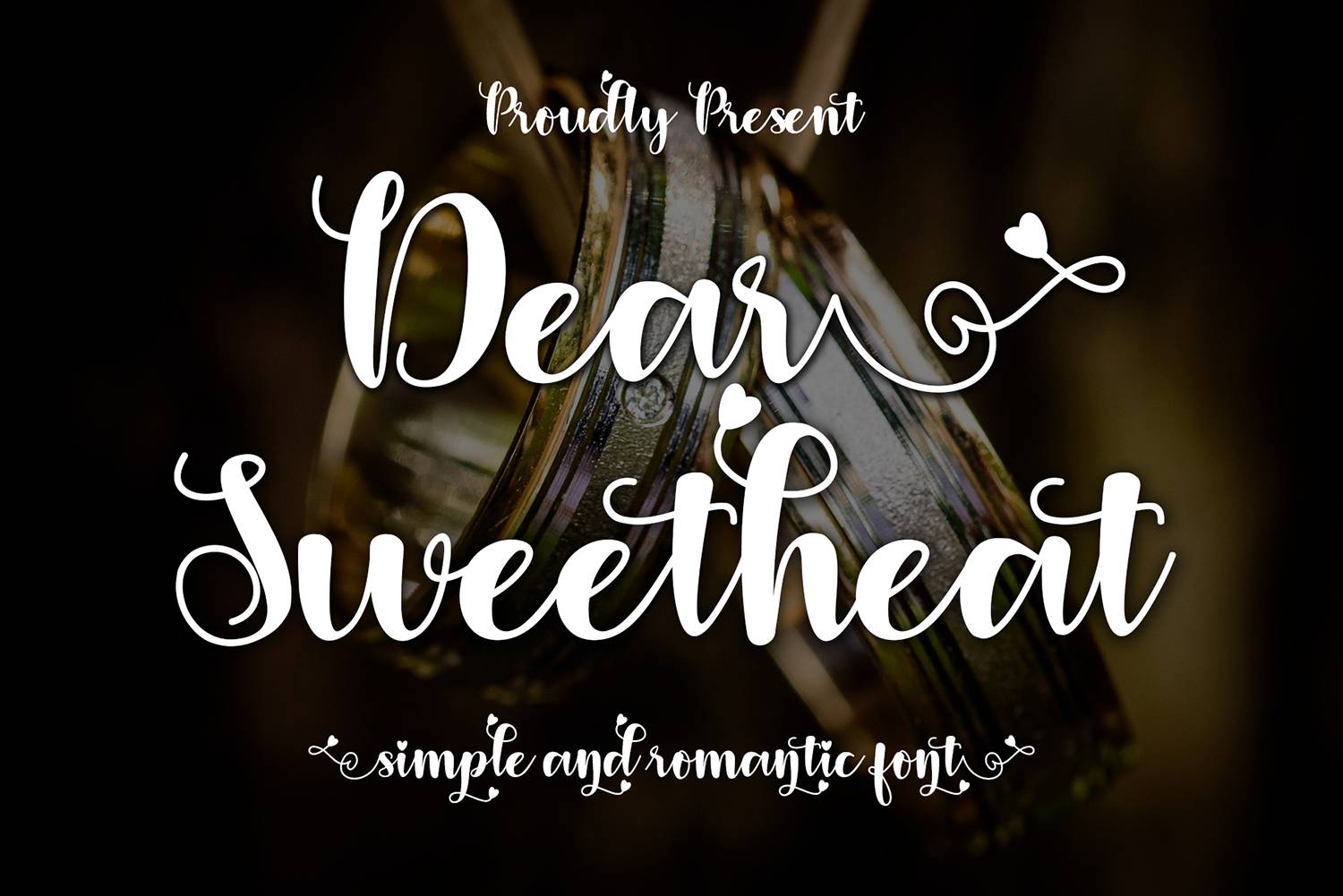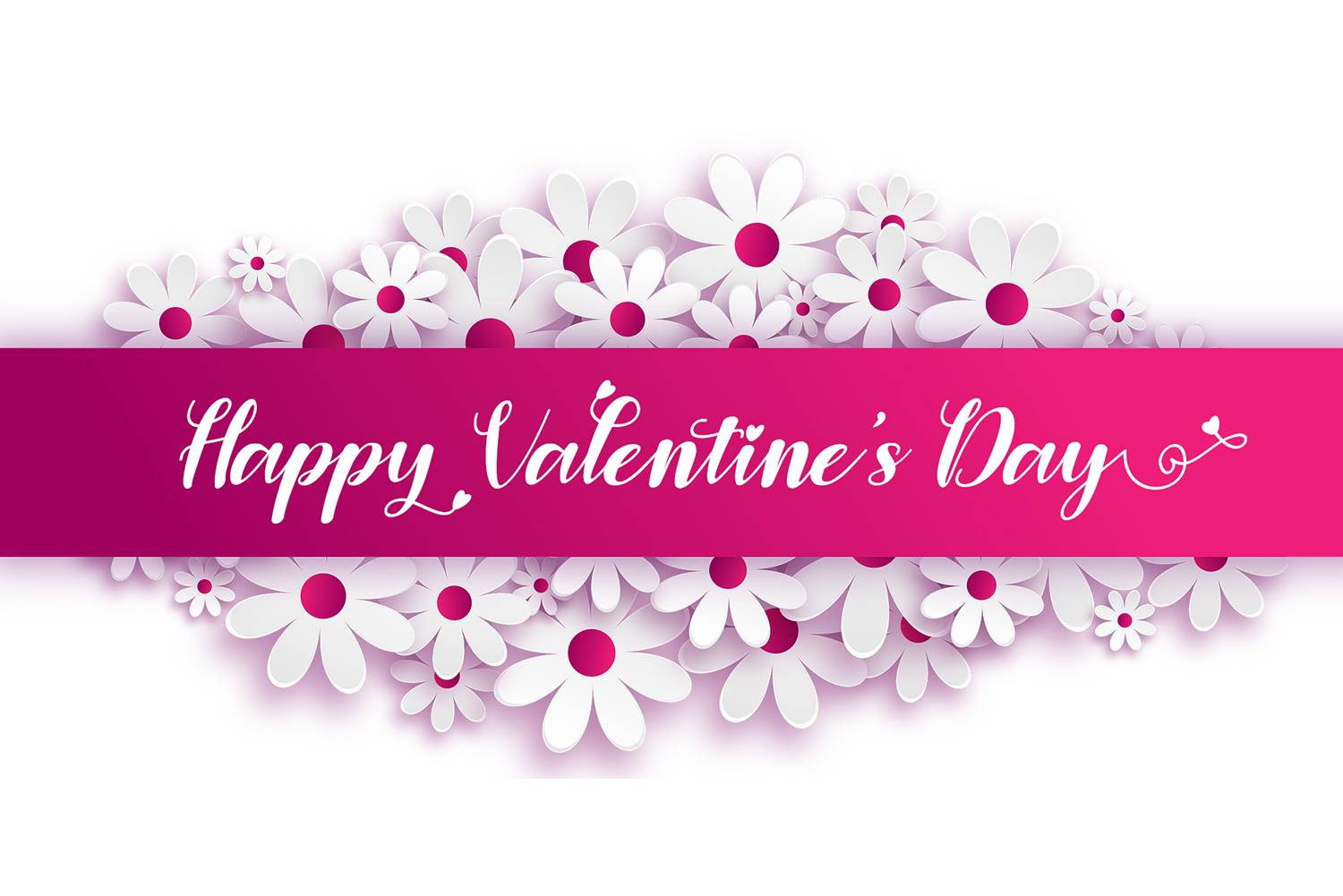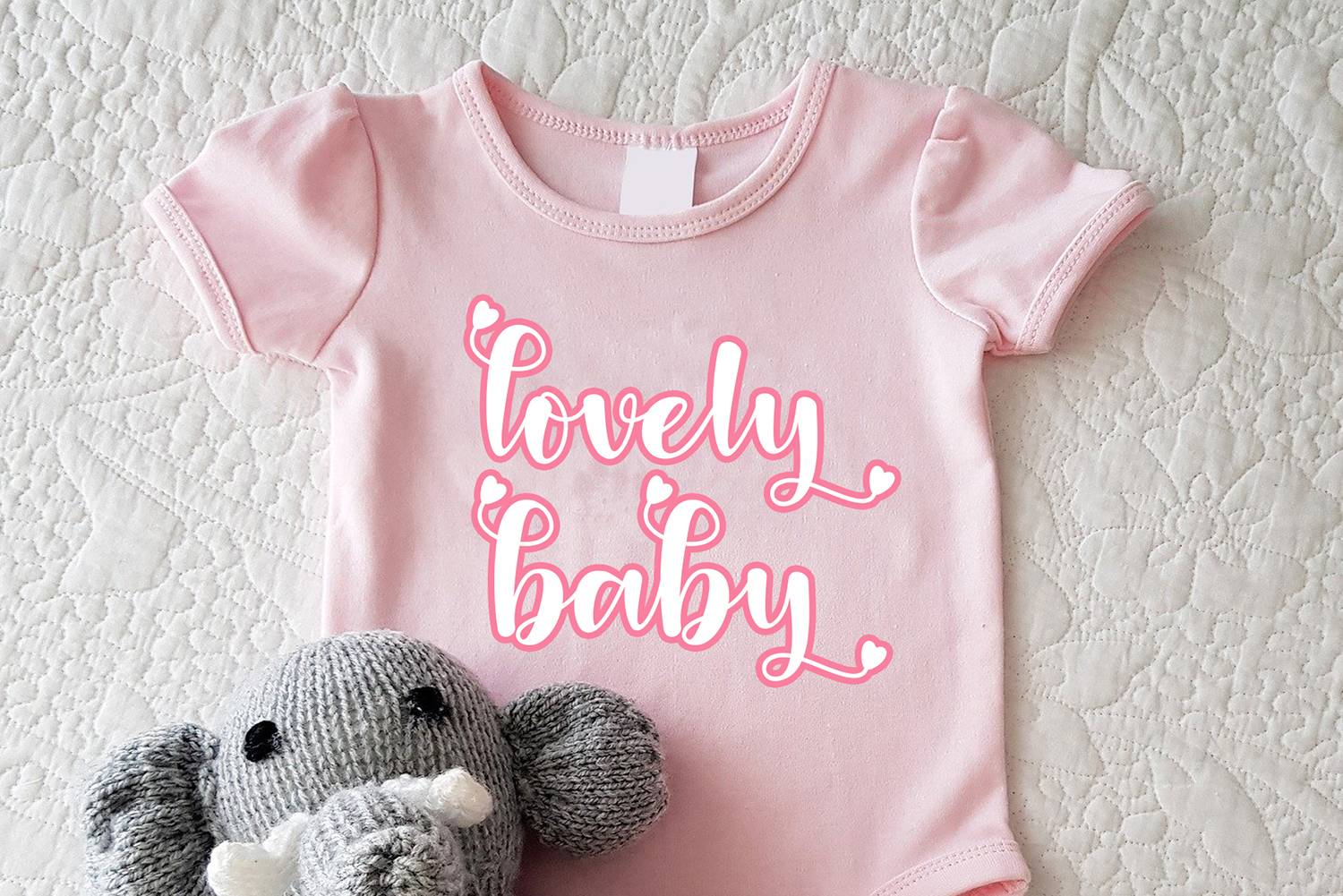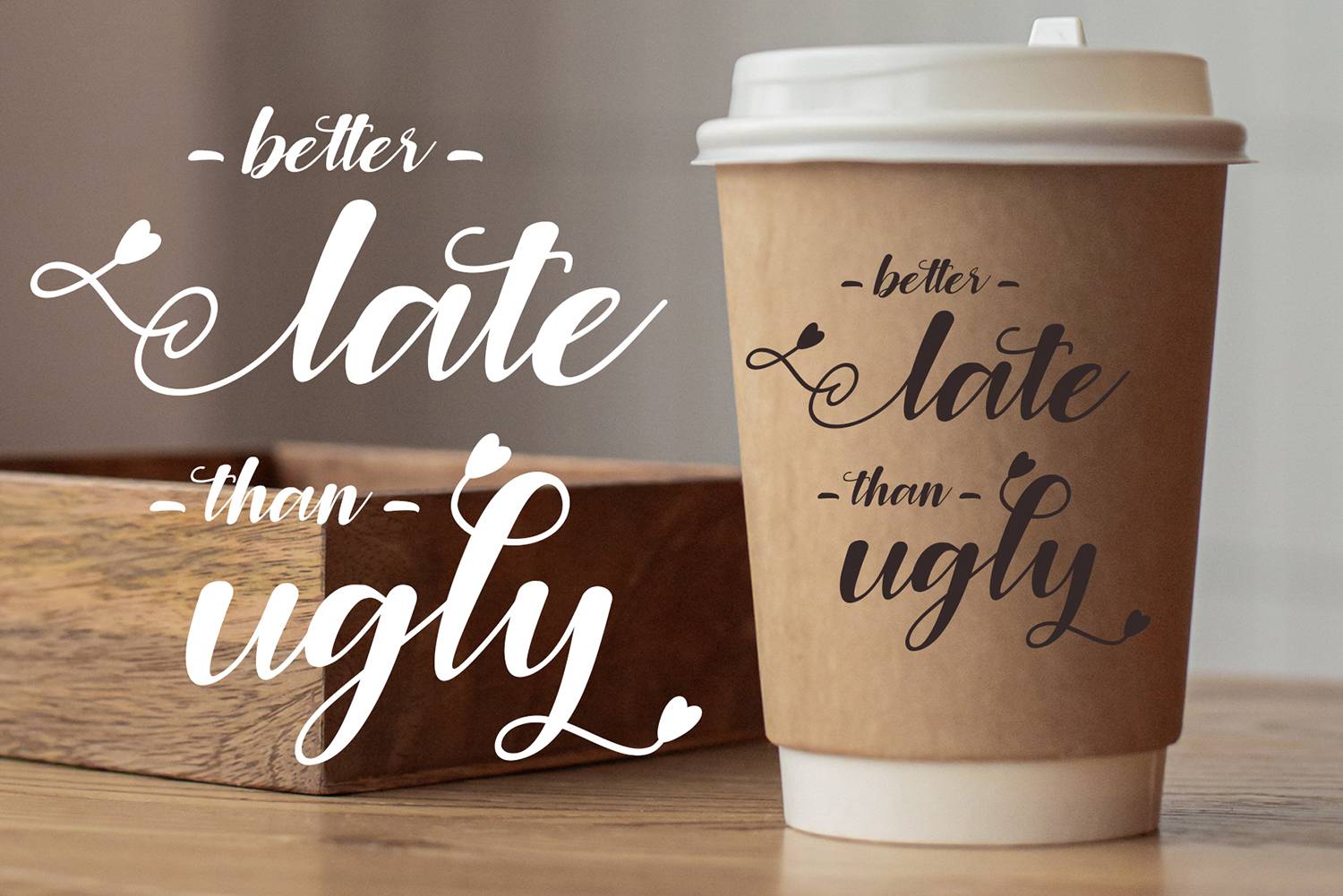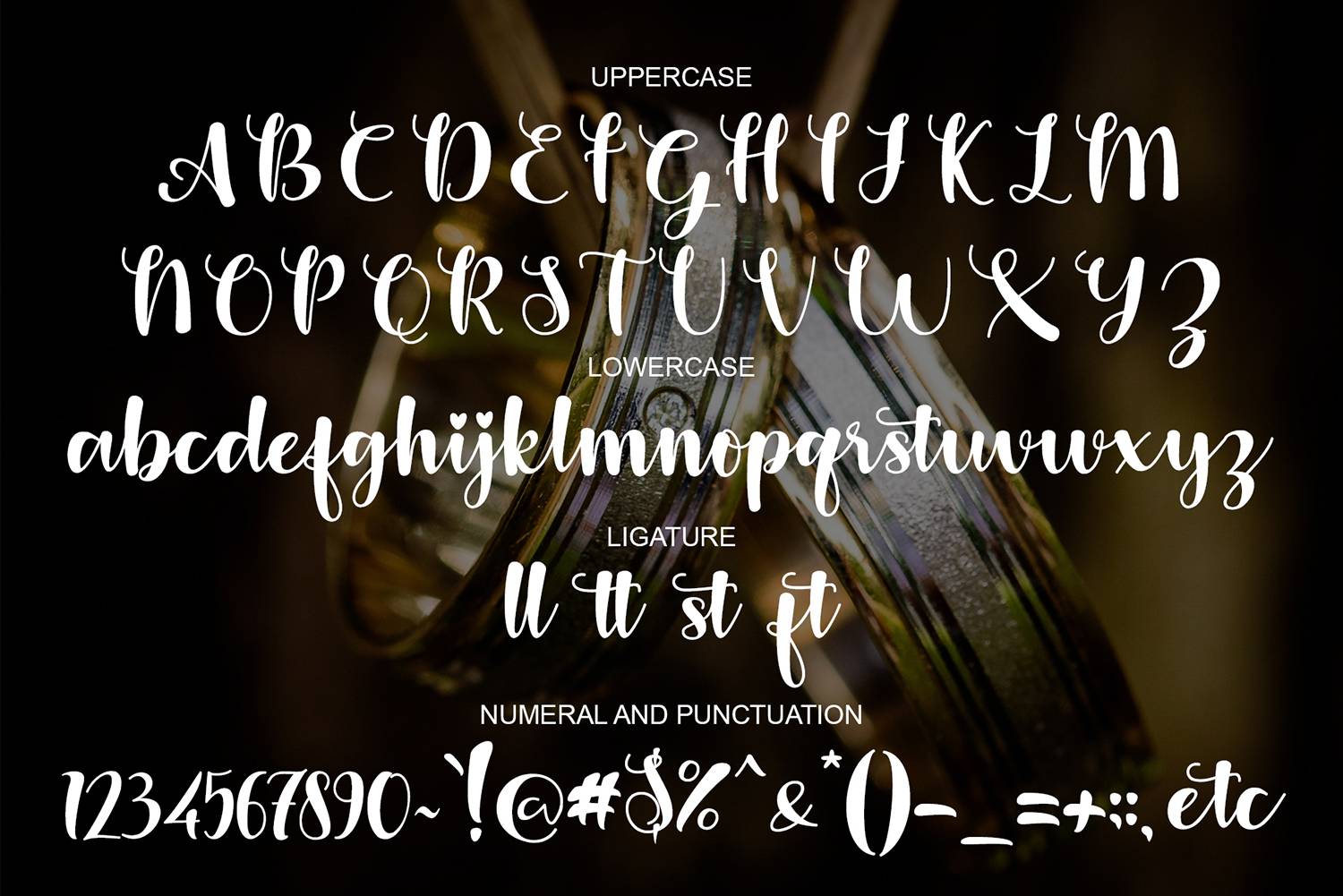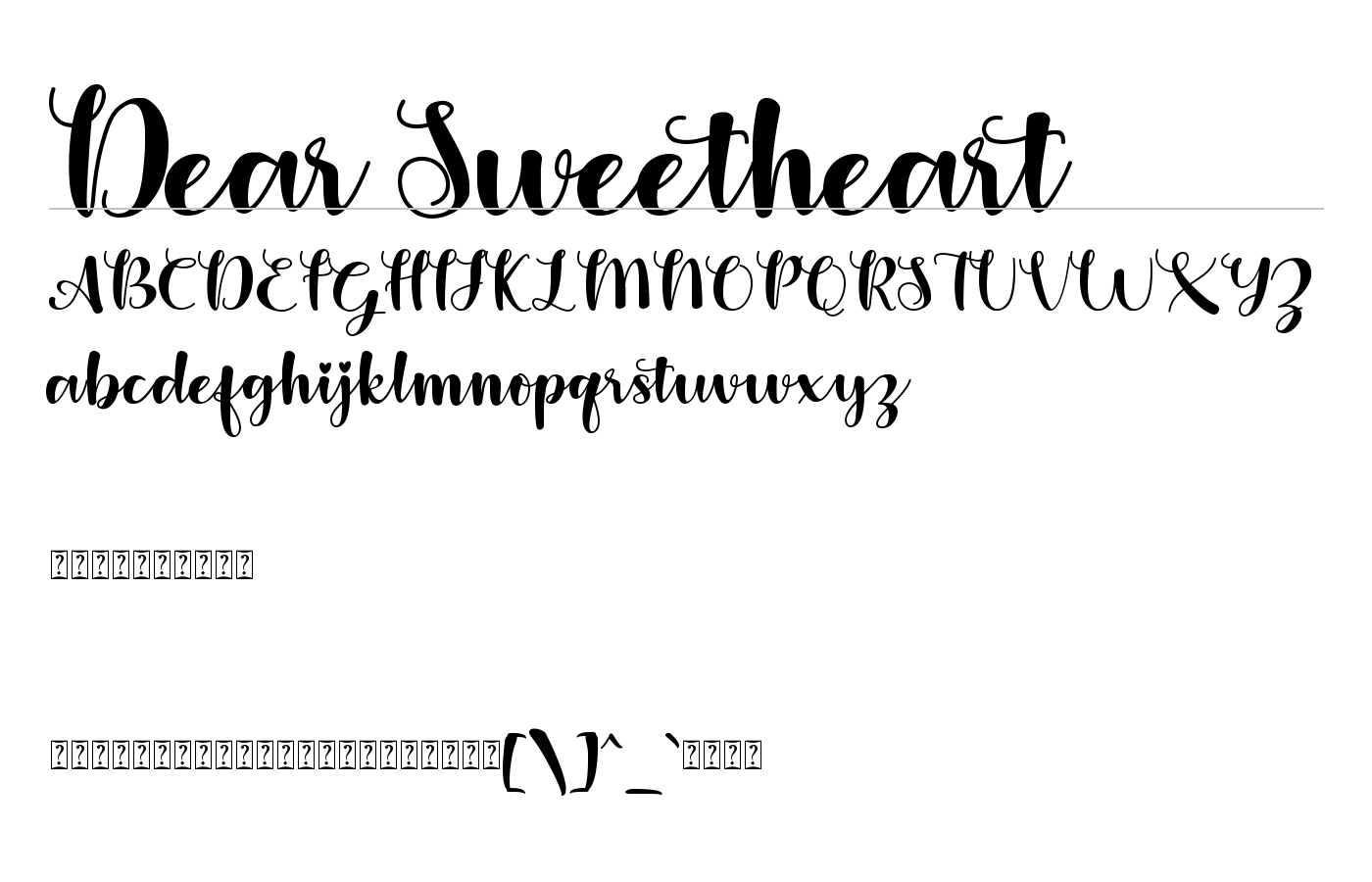
Dear Sweetheart is an elegant script font featuring smooth, flowing letterforms with a bold weight and high contrast between thick and thin strokes. Its playful yet sophisticated style, characterized by stylish swashes and curls, makes it perfect for romantic invitations, branding, and decorative headlines that seek to convey warmth and charm. This font works beautifully in designs that aim for a personal, handcrafted feel with a touch of classic elegance.
Dear Sweetheart Font
About Dear Sweetheart Font